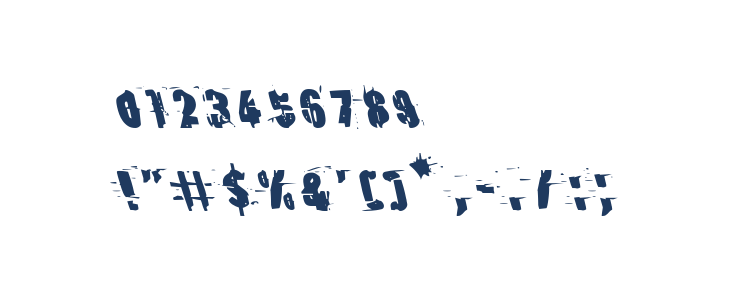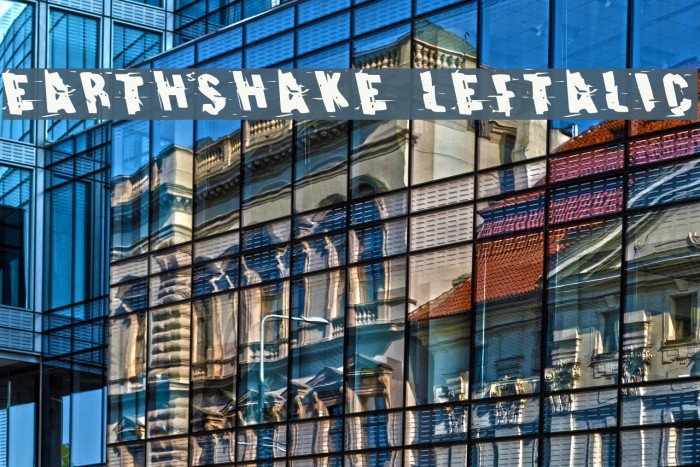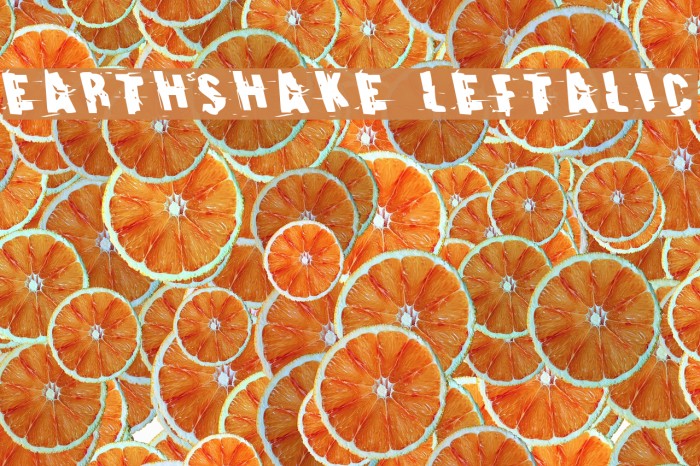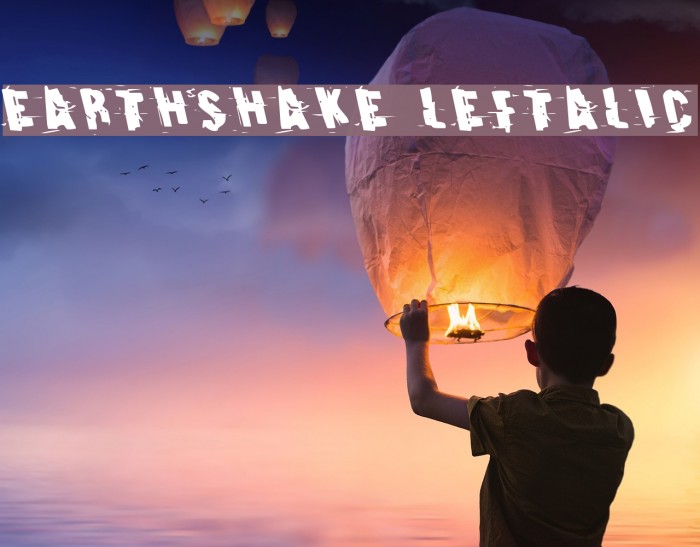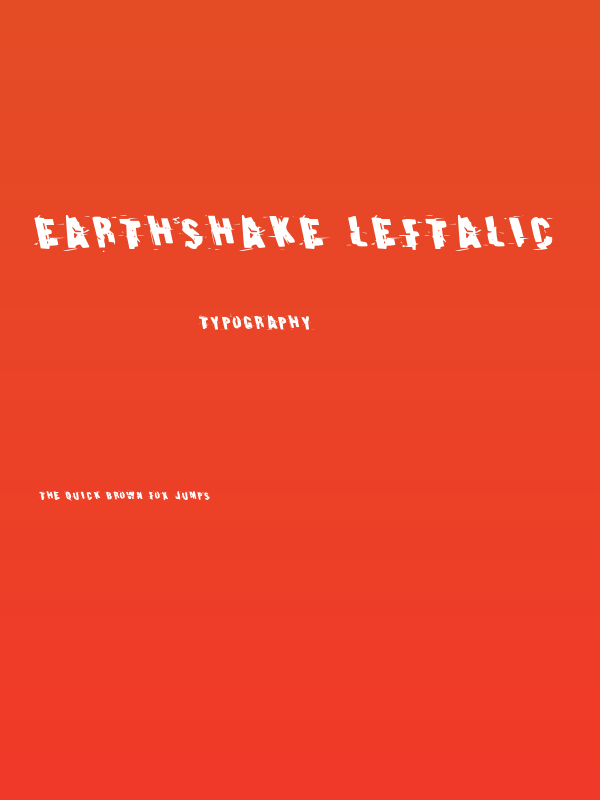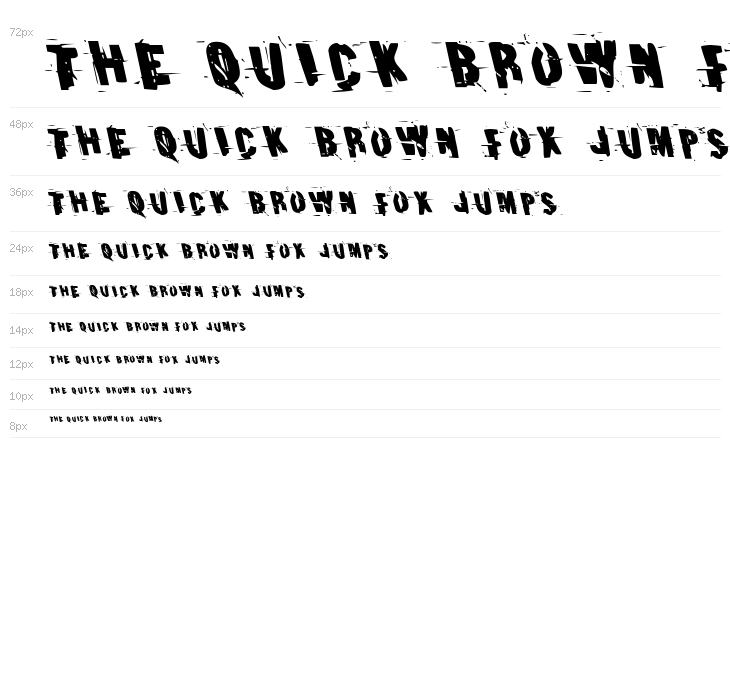
Earthshake Leftalic Font
Earthshake Leftalic Description
This font features a distressed and grungy style, characterized by rough, jagged edges and a bold, impactful presence. The letters are slightly slanted, giving a dynamic and energetic feel. The irregularities and imperfections in the design create a sense of movement and chaos, making it ideal for projects that require a rebellious or edgy aesthetic. The font maintains legibility despite its distressed appearance, with each character clearly distinguishable. It is well-suited for creative and artistic projects that aim to capture attention and convey a sense of urgency or intensity.
| Overall Style | Grunge, Edgy, Dynamic |
| Proposed Projects | Album covers, event posters, streetwear branding, video game titles, and rebellious-themed designs. |